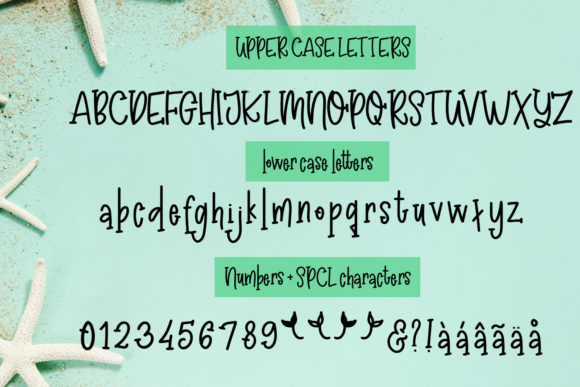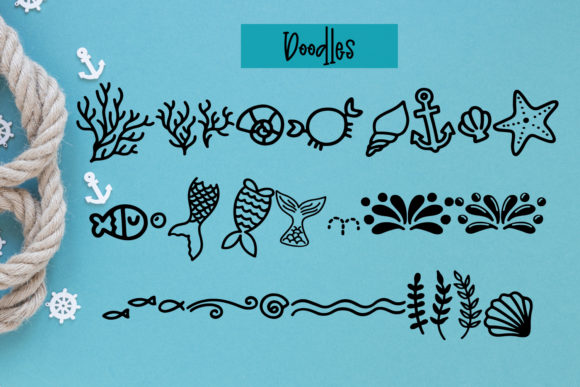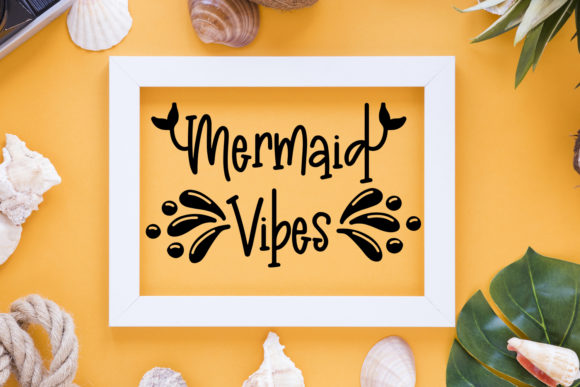
Introduction to Madison’s Tail Font
Madison’s tail is a bouncy and fun font.
It comes with beautiful doodles It is perfectly suited for a wide variety of projects.